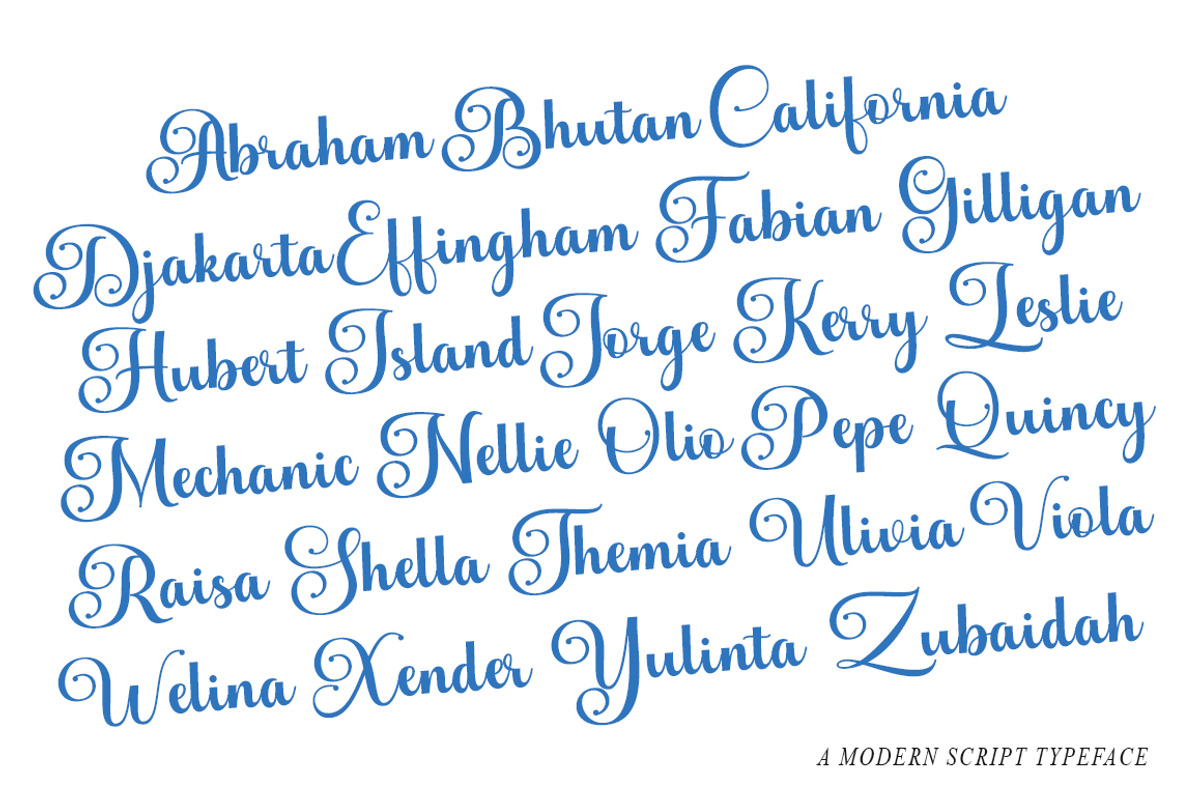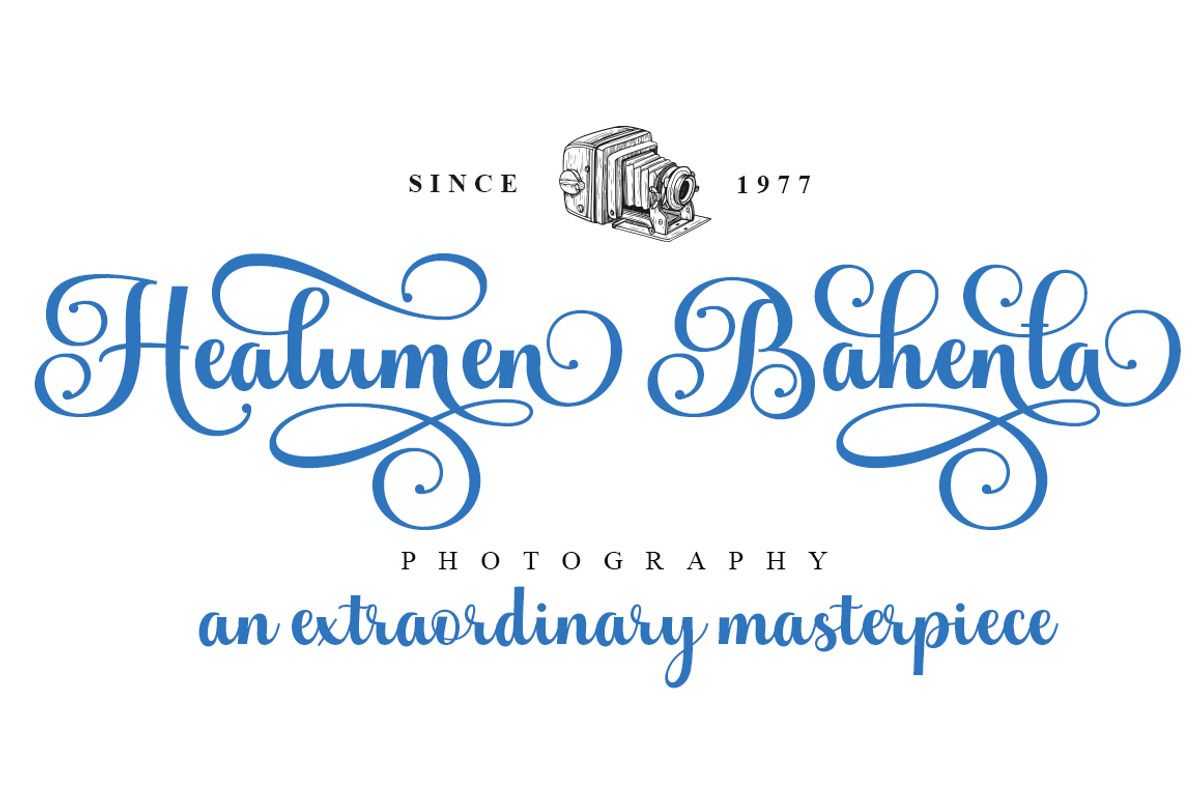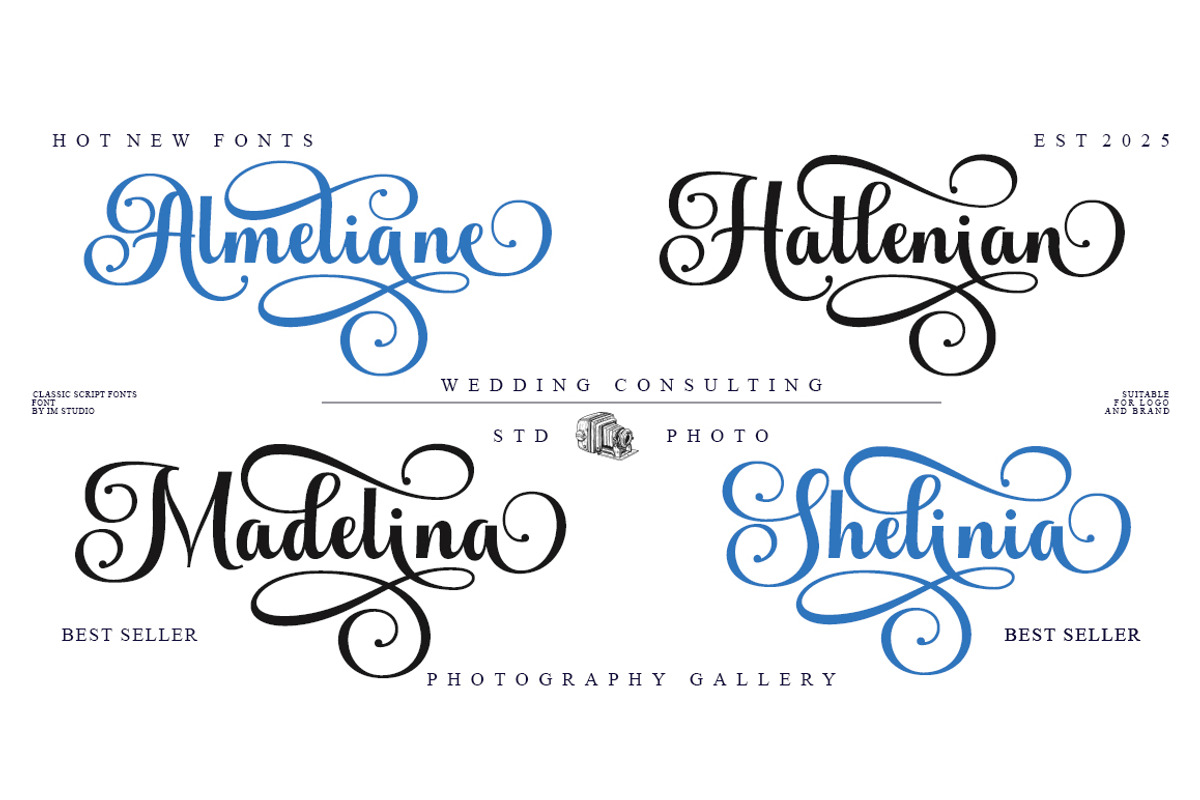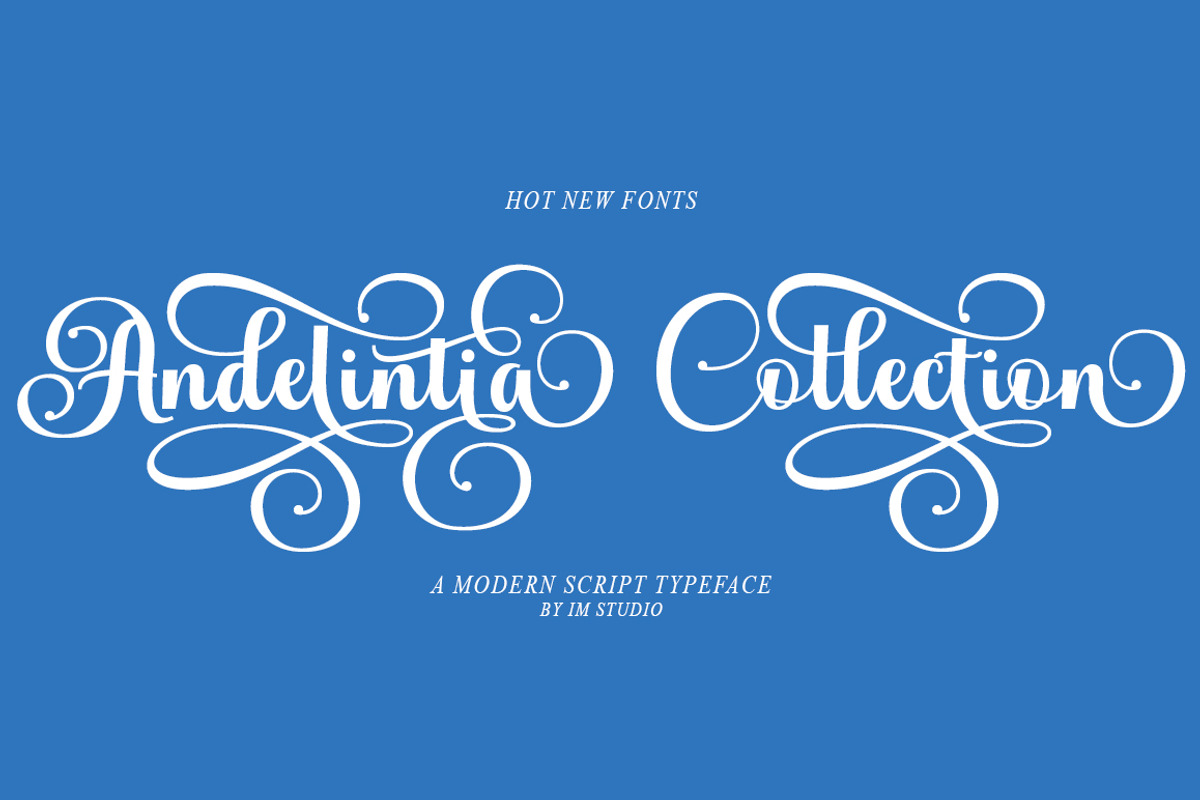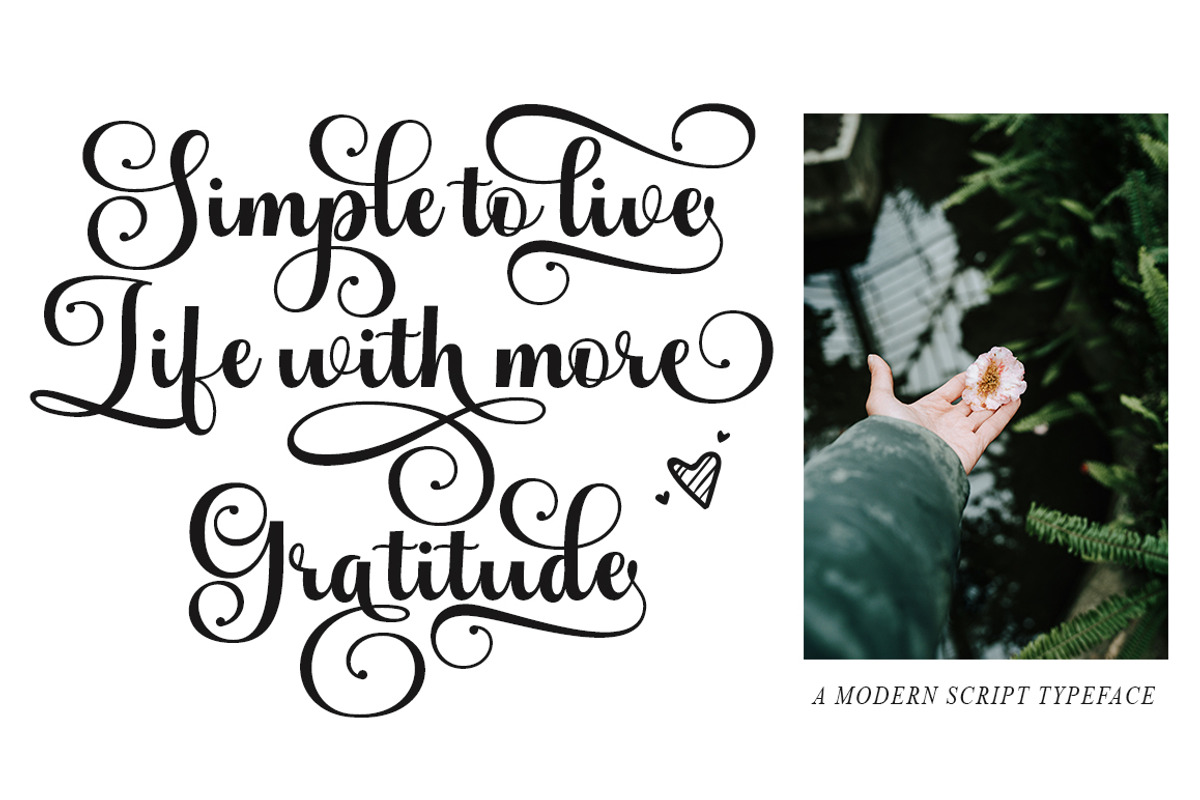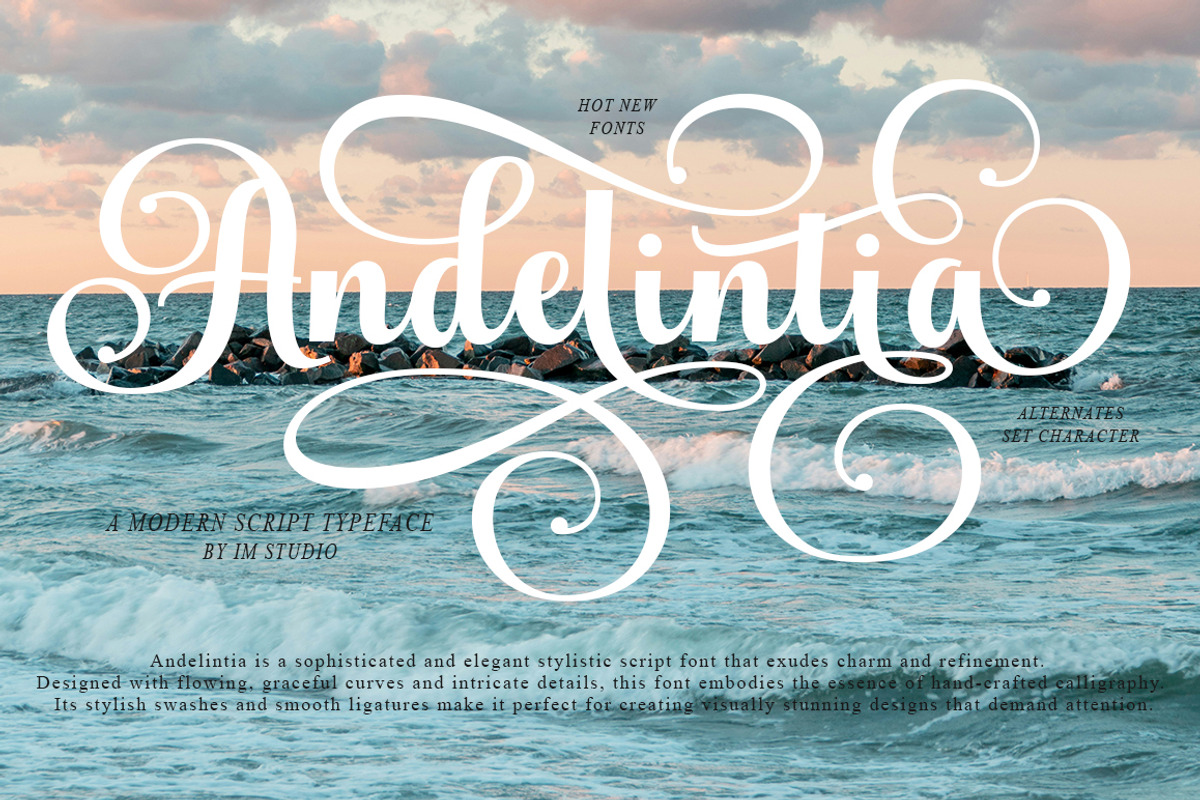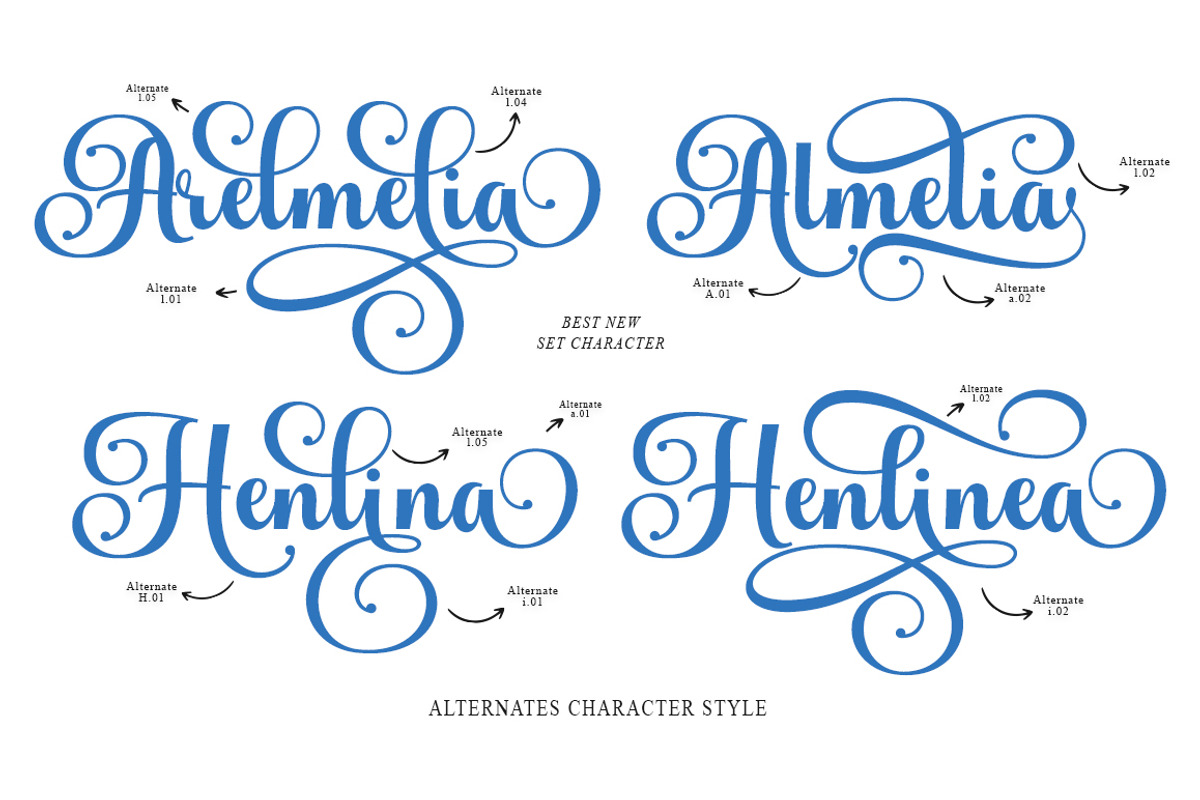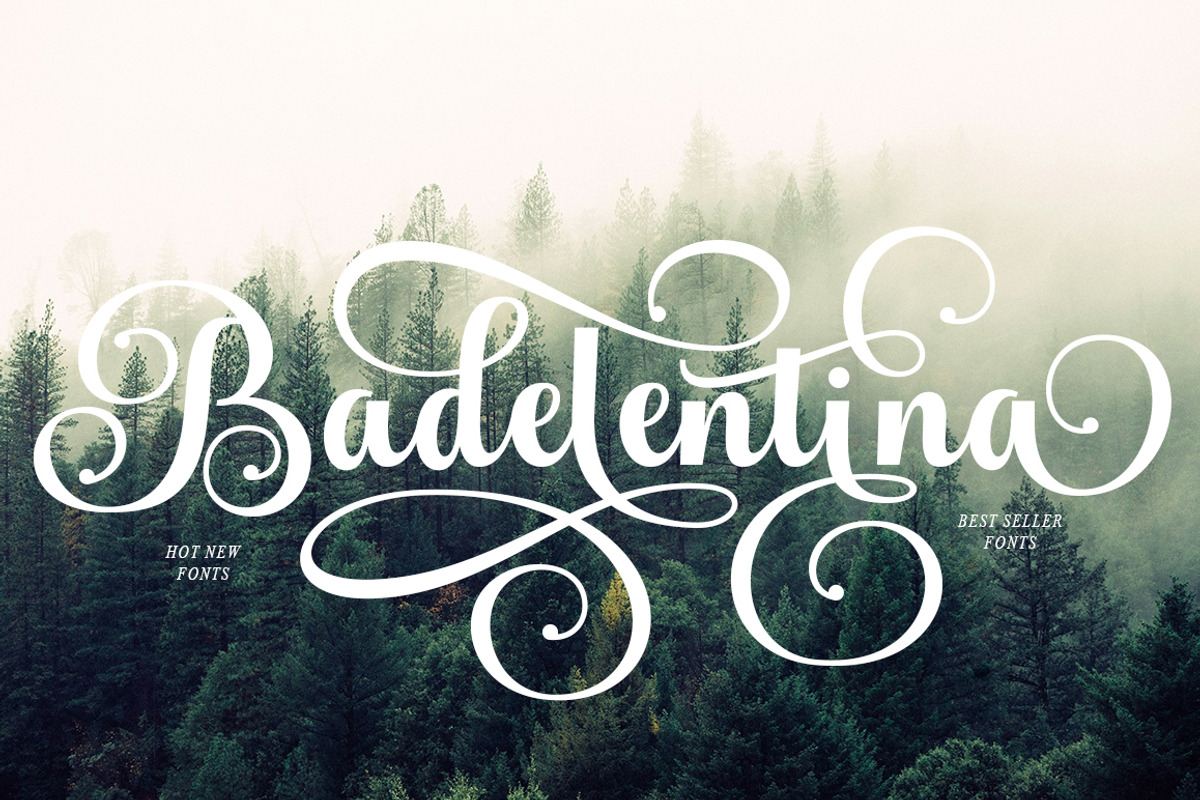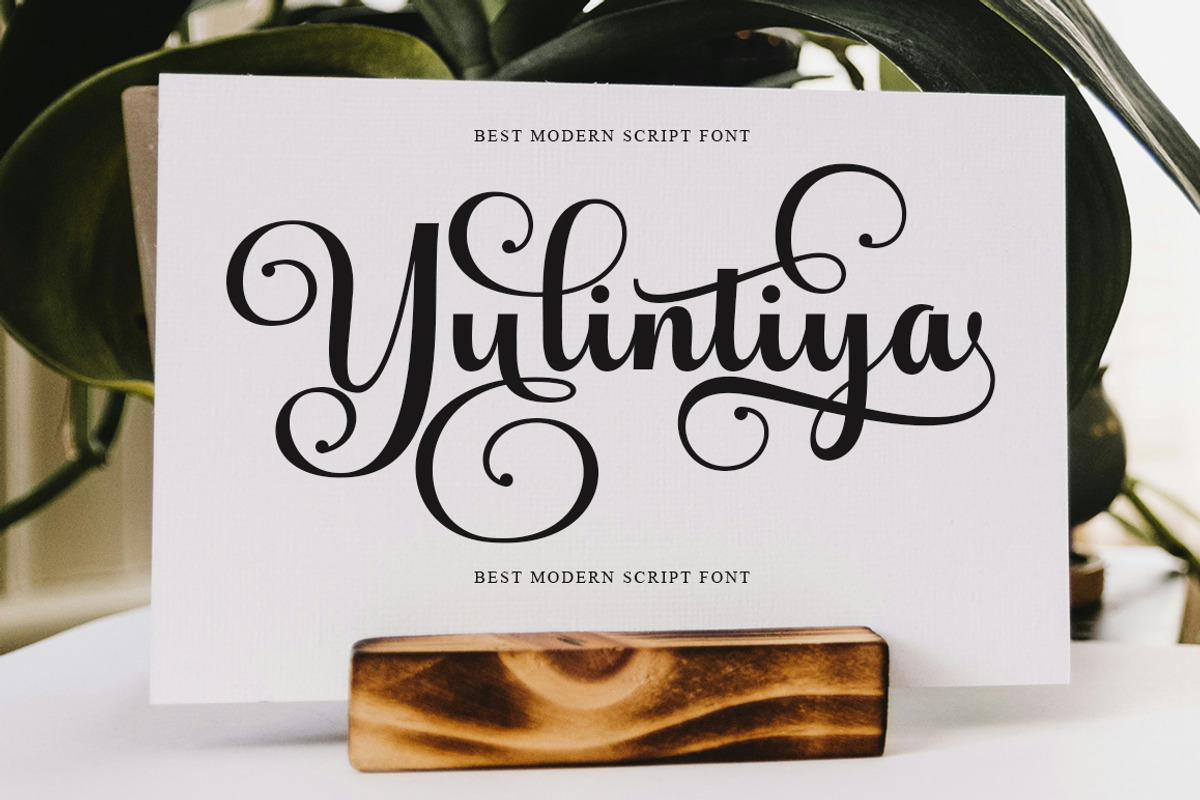
Andelintia
Experience the elegant allure of the Andelintia Calligraphy font, effortlessly merging modern calligraphy artistry with a touch of casual charm. Graced with captivating swashes, it breathes a visually appealing life into any design project. Whether you’re crafting logos or product packaging, making wedding invitations more enchanting or branding more distinct, this versatile font is a perfect fit. It adds depth to your headlines, stylishly elevates your signage and labels, makes signatures more noteworthy, and turns book covers, posters, and quotes into memorable pieces. Embrace the beauty and functionality of Andelintia Calligraphy font and let your creativity run wild.